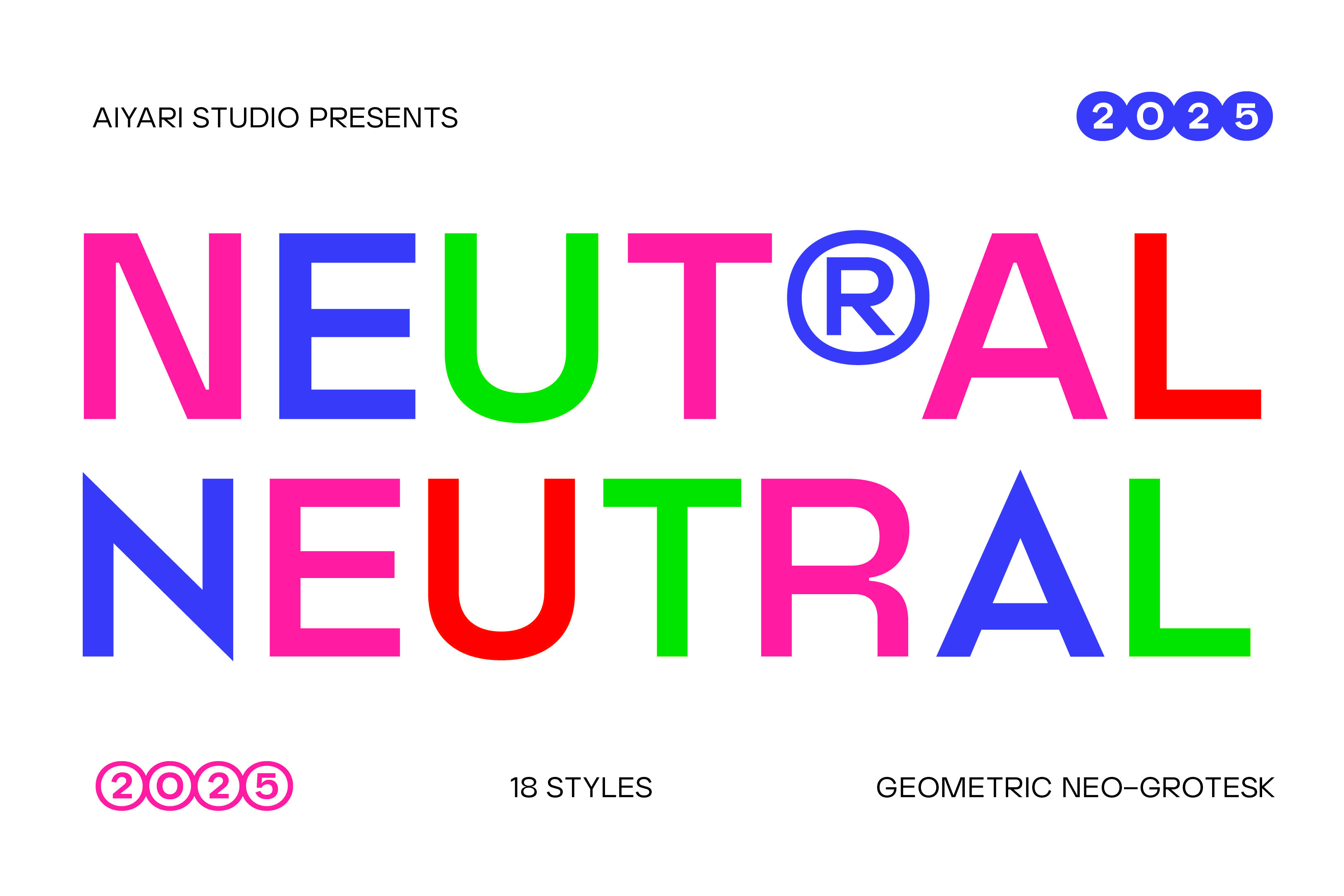
Neutral Font Family
Every patisserie has its staple, the kind of creation that might look simple but holds everything together. Neutral is that essential bake: the white bread, the plain croissant, the quiet hero that lets every other flavor shine. It is dependable, balanced, and crafted to perfection.
As a geometric Neo-Grotesk, it delivers clarity and purpose with the ease only true craftsmanship can bring. With 18 weights and matching italics, Neutral offers structure and flexibility in equal measure. Its close apertures keep every detail legible, while stylistic alternates give designers a touch of freedom to shape their own voice. Neutral isn’t here to steal attention; it’s here to make everything around it better. A timeless foundation, baked to perfection.